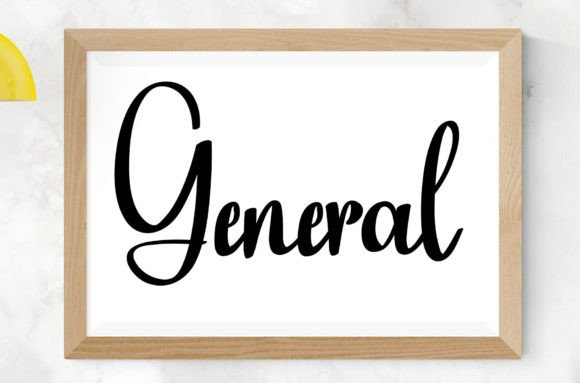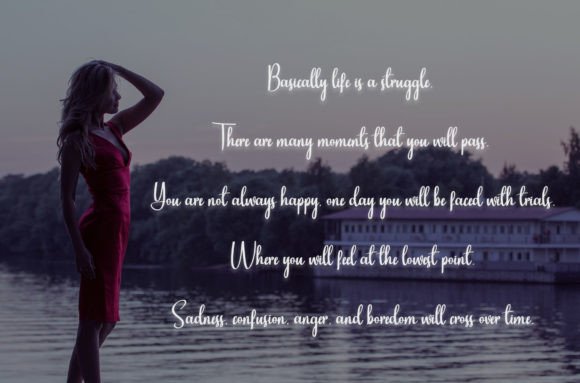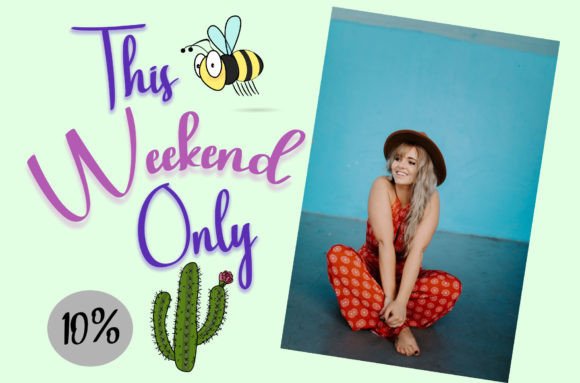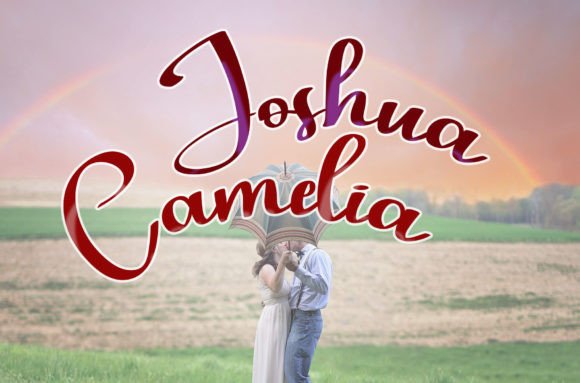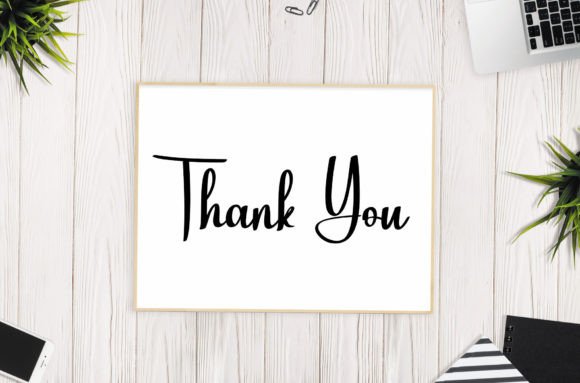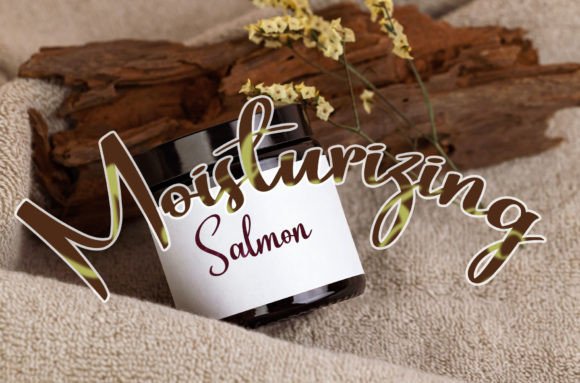
General Font
About General Handwritten Font
General Handwritten Font is a simple and friendly typeface designed to add warmth and personality to your projects. With smooth strokes, casual curves, and a modern handwritten feel, it brings the charm of hand lettering into both personal and professional designs. Because of its versatility, General Handwritten Font is perfect for invitations, posters, packaging, logos, social media content, and branding projects.
A Friendly Typeface with Casual Charm
Handwritten fonts often bring authenticity and style, and General Handwritten Font embodies these traits beautifully. Its relaxed yet balanced strokes give your text a natural flow that feels approachable and unique. In addition, the design ensures clarity, making it suitable for both detailed text and bold headlines.
Special projects deserve fonts that feel personal, and General Handwritten Font delivers just that. For example, it enhances wedding invitations, thank-you notes, and event menus with timeless charm. Moreover, it works wonderfully on seasonal greeting cards, birthday stationery, and festive projects, ensuring every design feels warm and memorable.
A Script Typeface for Branding and Packaging
Businesses and creatives can rely on General Handwritten Font to strengthen their branding. It shines on boutique logos, product packaging, and promotional campaigns. Furthermore, it adapts seamlessly to magazine covers, social media graphics, and advertising layouts. When paired with minimalist sans serif fonts, it creates a polished and professional brand identity.
Flexible Across Print and Digital Media
Another strength of General HandwrittenFont is its adaptability across platforms. In print, it enriches posters, brochures, and merchandise with a stylish flair. Digitally, it integrates smoothly into blogs, websites, and e-commerce platforms. Since it scales perfectly from small labels to large banners, it ensures readability and consistency across every format.